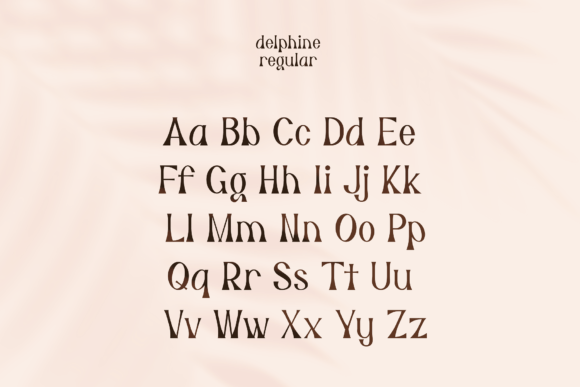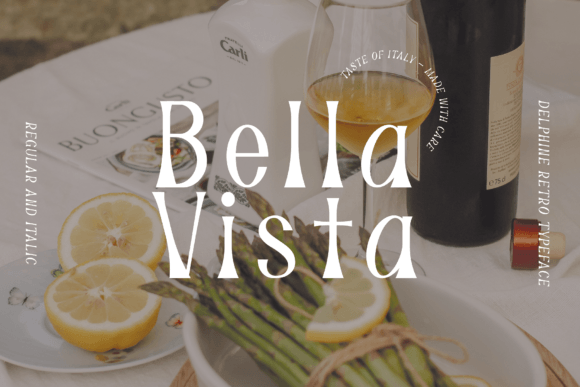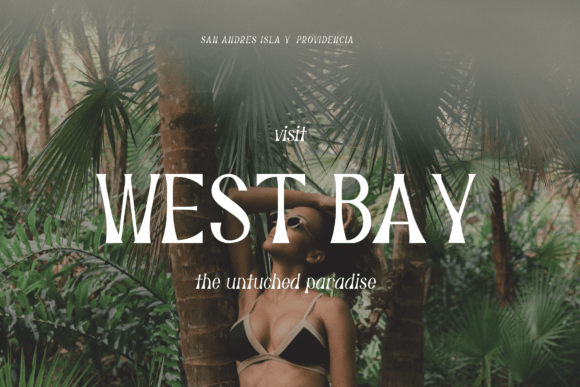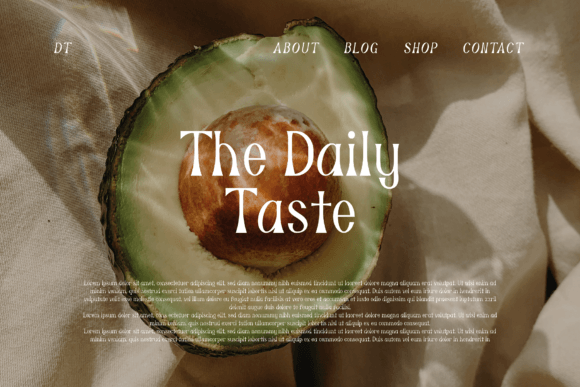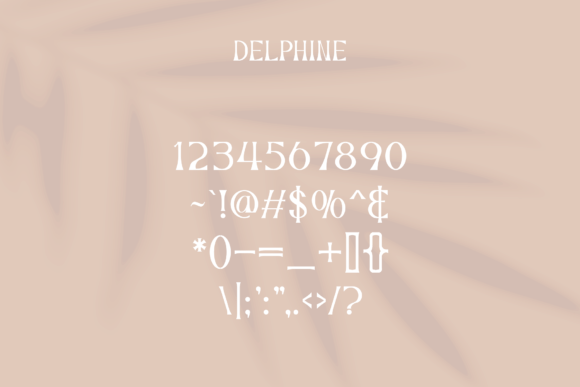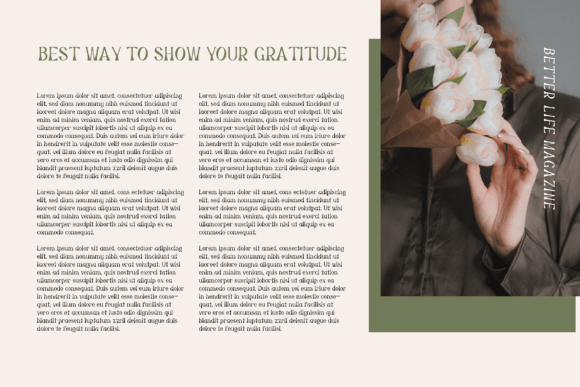
Introduction to Delphine Font
Delphine is a modern and elegant font that exudes sophistication and timeless charm.
With its sleek and refined letterforms, this typeface effortlessly combines classic elements with a contemporary twist Its clean lines and graceful curves lend a sense of luxury and refinement to any design.